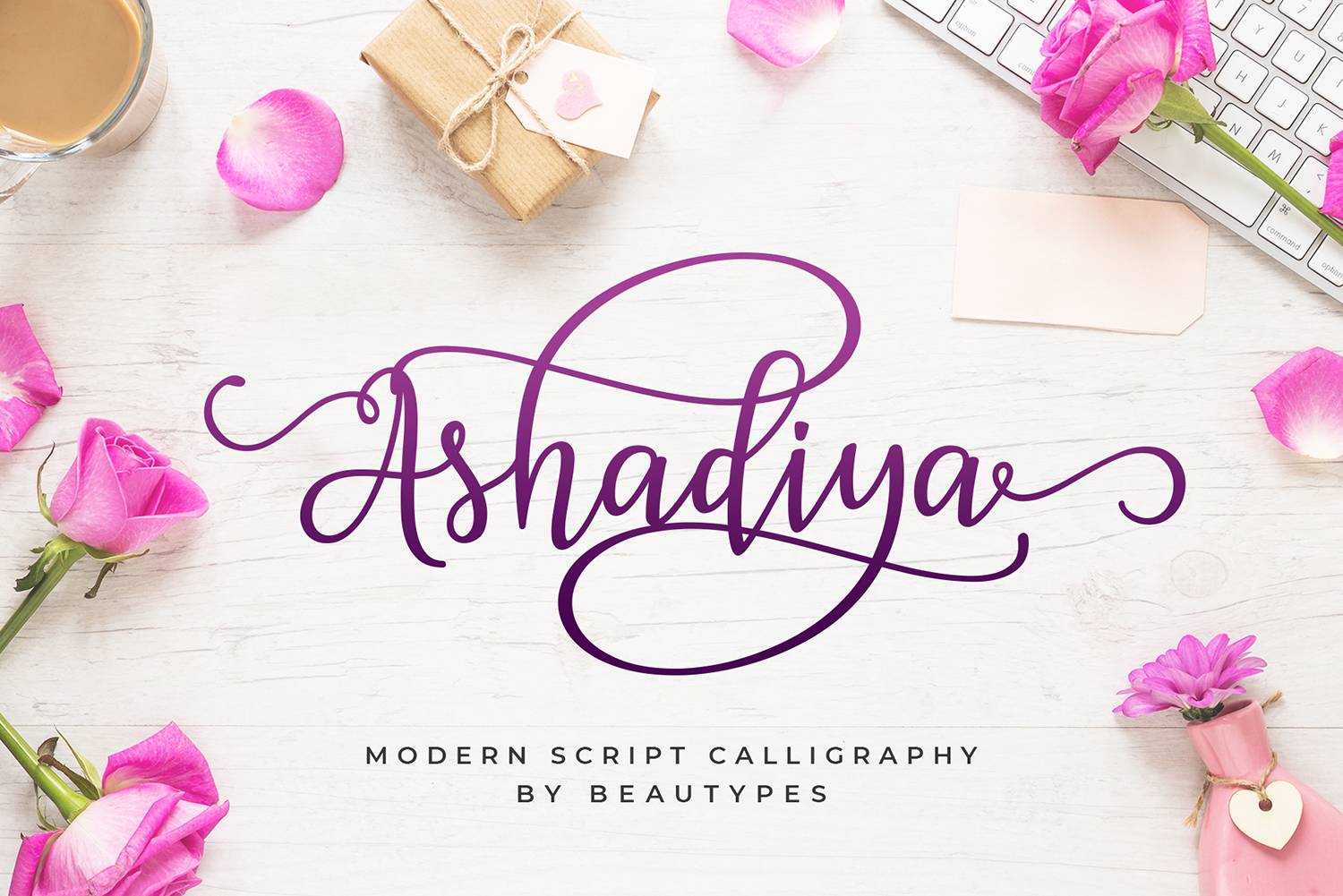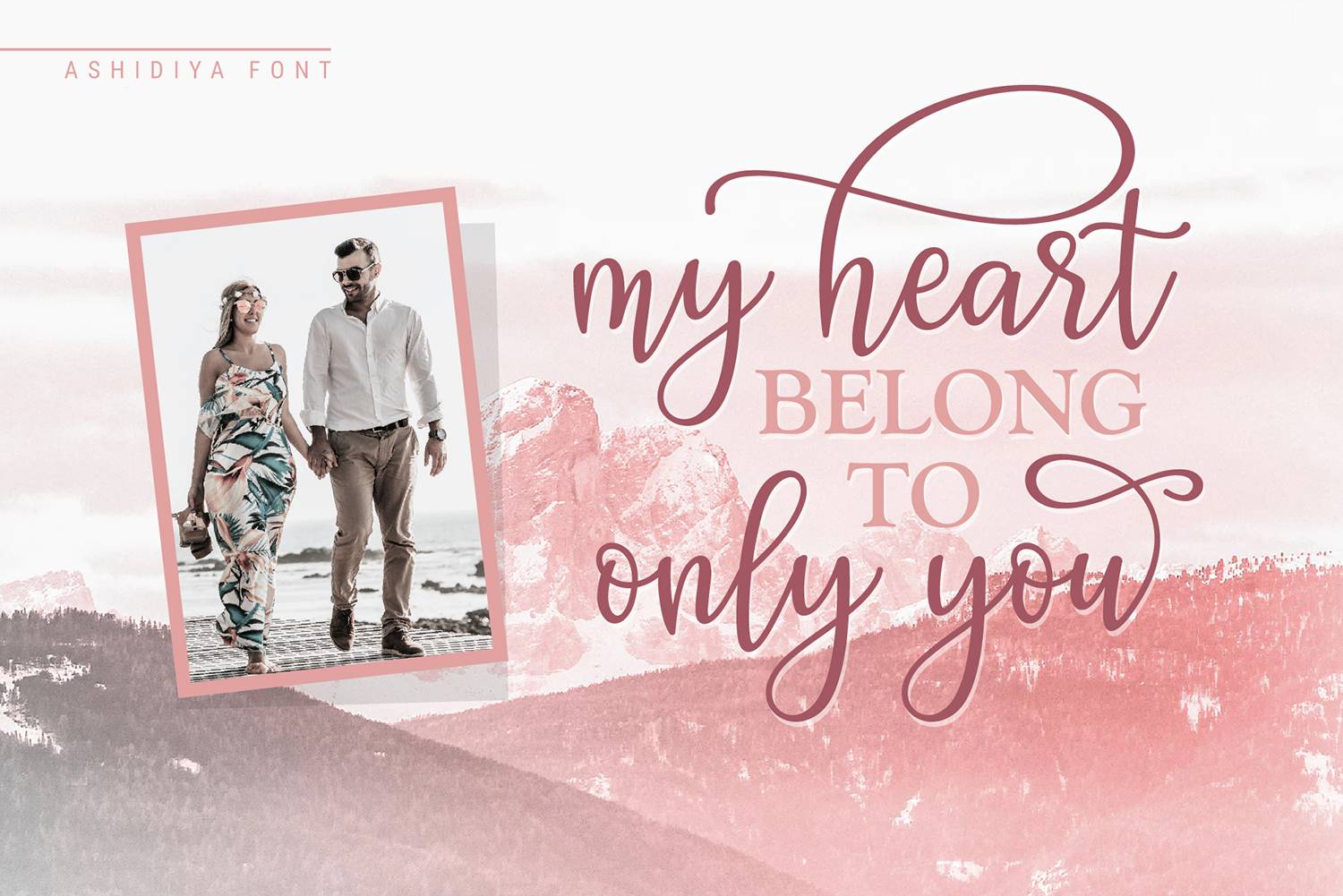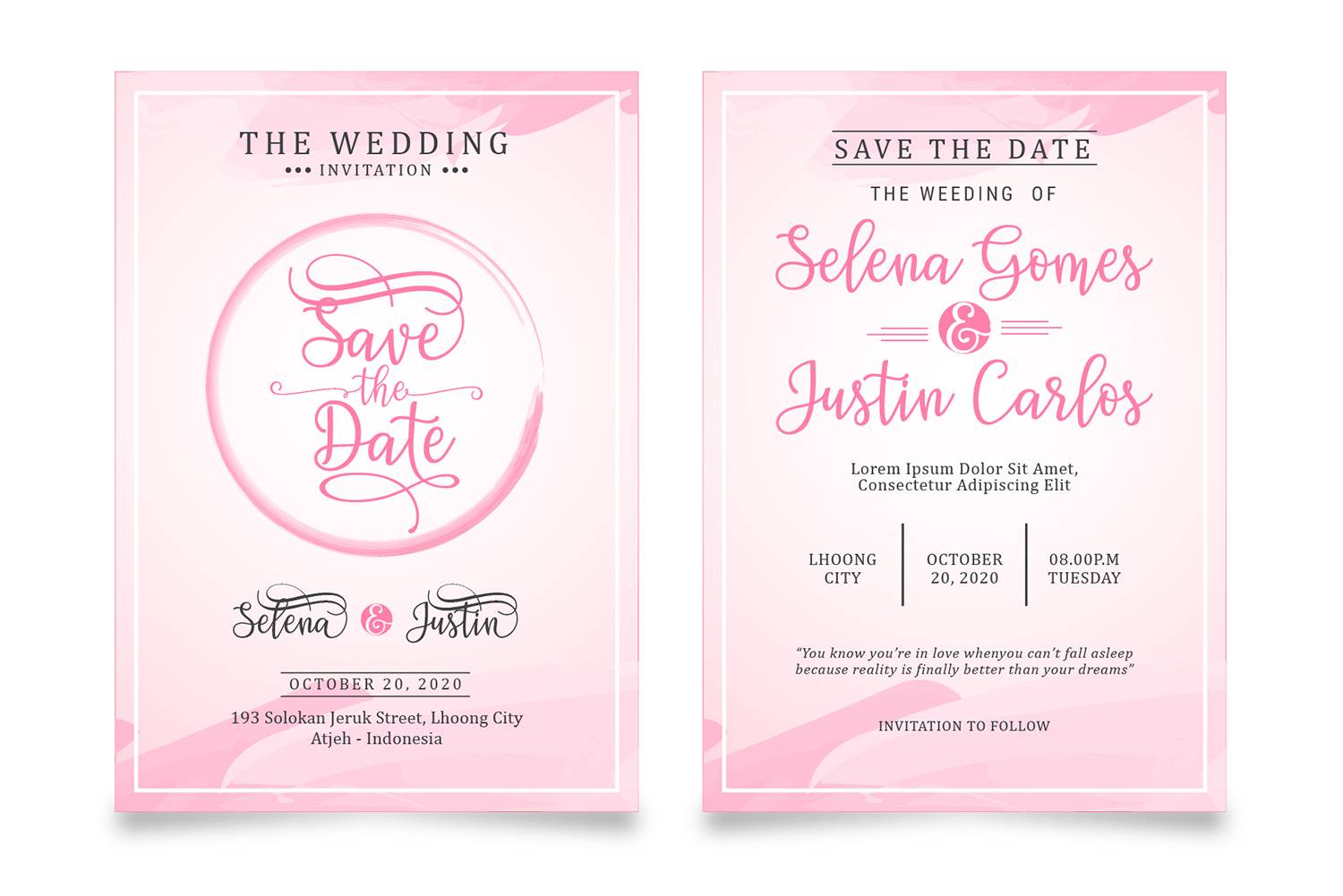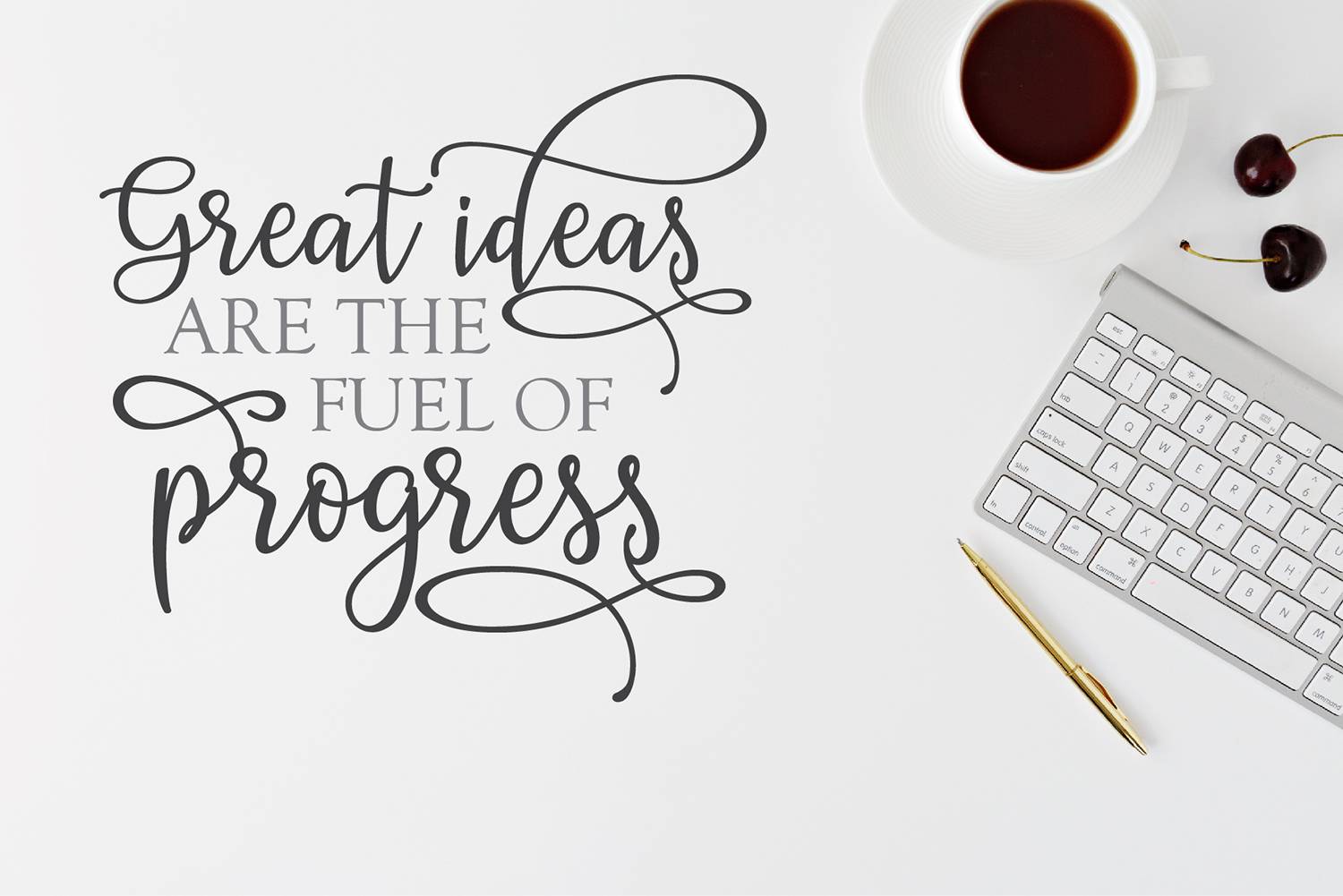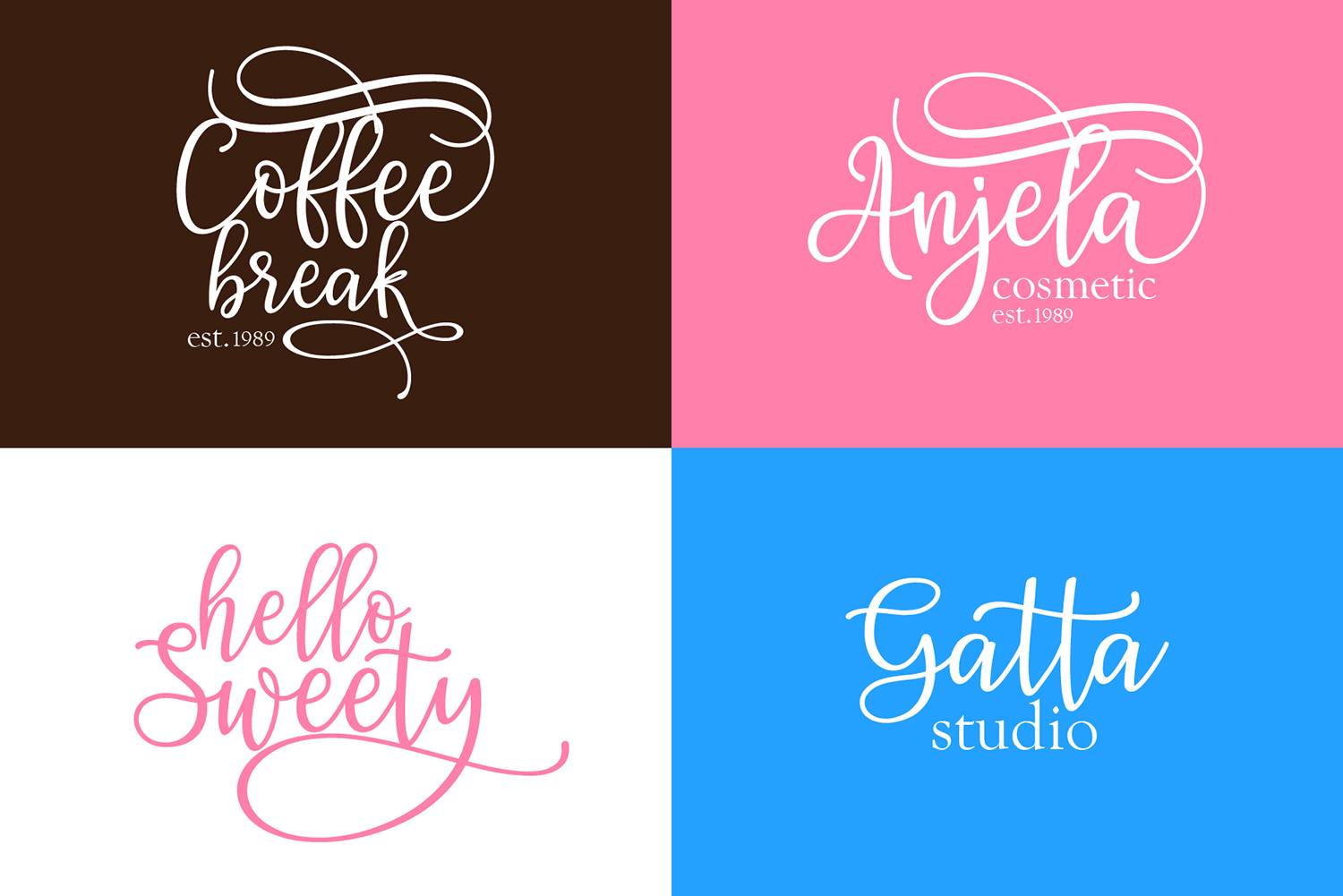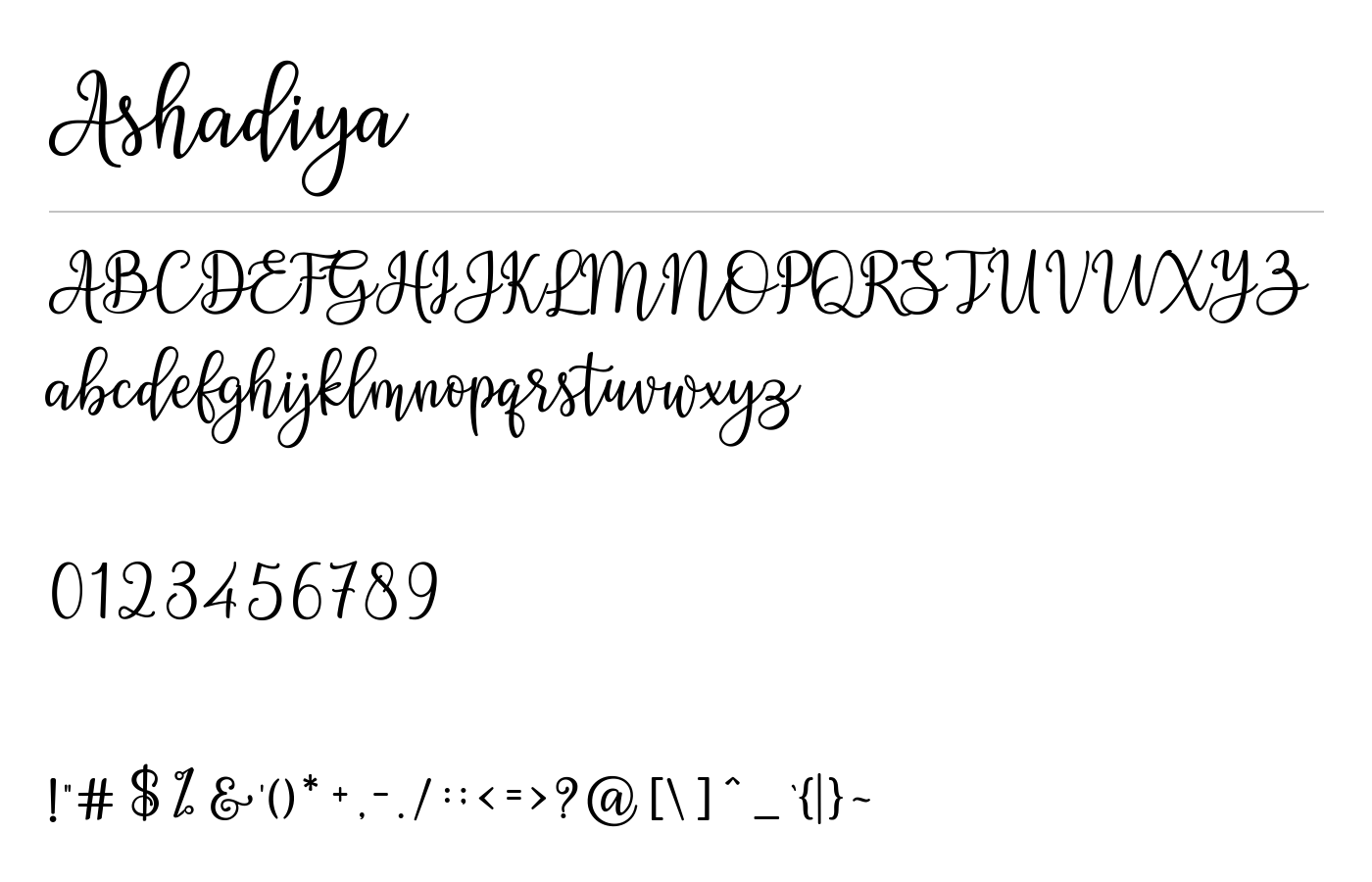
Ashadiya is a delicate script font with smooth, flowing strokes that give it an elegant and personal handwritten feel. Its light weight and graceful curves make it perfect for feminine, romantic, or creative branding, especially in invitations, logos, and stylish editorial designs. With its charming style and clear readability, Ashadiya adds a touch of warmth and sophistication to any project needing a refined yet approachable look.
Ashadiya Font
About Ashadiya Font